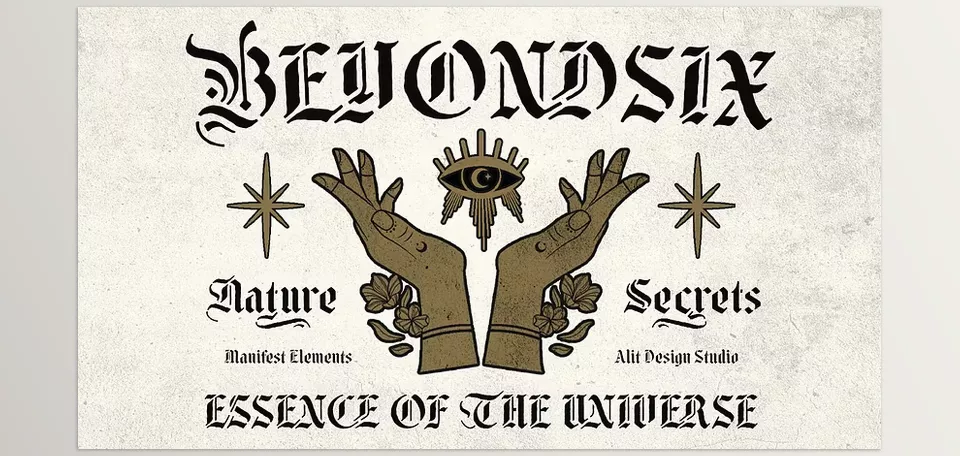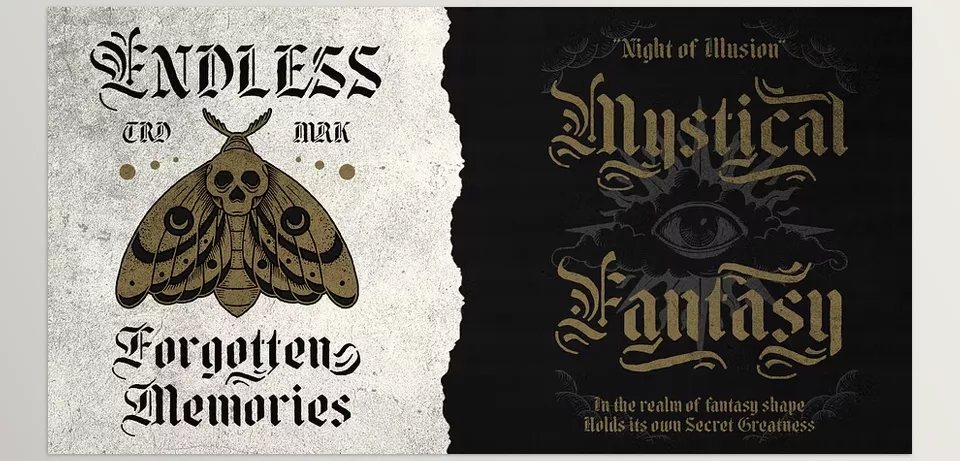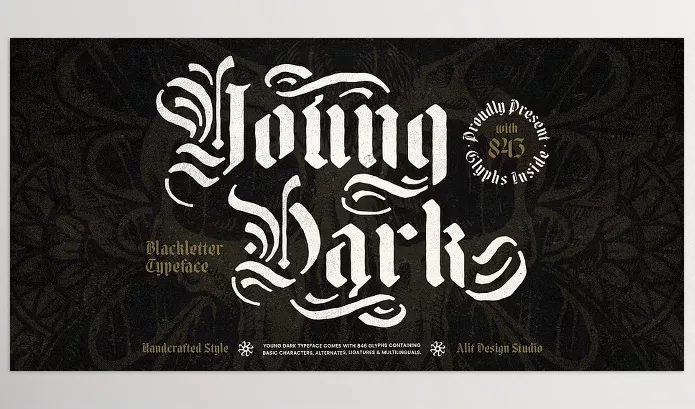
FONTSPRING – Young Dark Typeface Bold Blackletter Stencil Font Download
FONTSPRING – Young Dark Typeface has a bold edge, making it perfect for music cover art, posters, and even branded clothing.
FONTSPRING – Young Dark Typeface Bold Blackletter Stencil Font Features
• Blackletter Goes Stencil: Rough stencil-style takes place on the medieval calligraphy blackletter.
• Broad Character Range: Includes 846 uppercase and lowercase letters, numbers, symbols, punctuation, and other artistic flourishes.
• Bypass Restrictions: Gain access to Unicode and other special characters without the need for third-party software.
• Easier and Quicker: Add smooth combinations of letters for clean typographic results.
• Multilingual Support: Works with western, central, and southeastern European languages.
Image 1: A bold font for daring designs.
Image 2: Perfect for expressing rebellious designs.